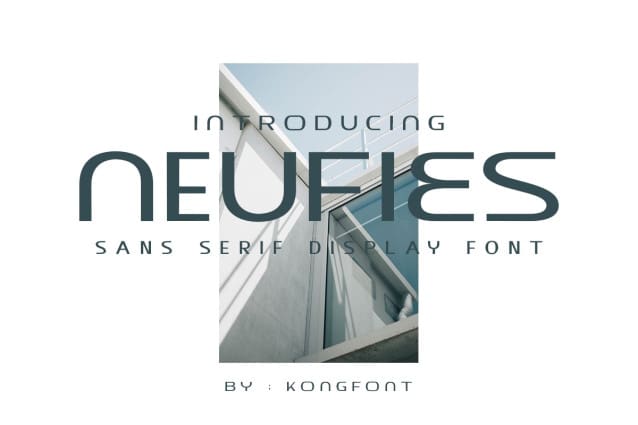
Neufies Font
Neufies Font – Modern Futuristic Font is one of our Display Sans-Serif fonts. If you want a legible and easy-to-use sans-serif font, you should consider picking up Neufies Font – Modern Futuristic Font for your project.
This font is a clean and modern-looking font with a very minimalistic style. It is a readable typeface that you can use for many things as a digital font and a print font, such as writing on a blog, magazine, or book cover.